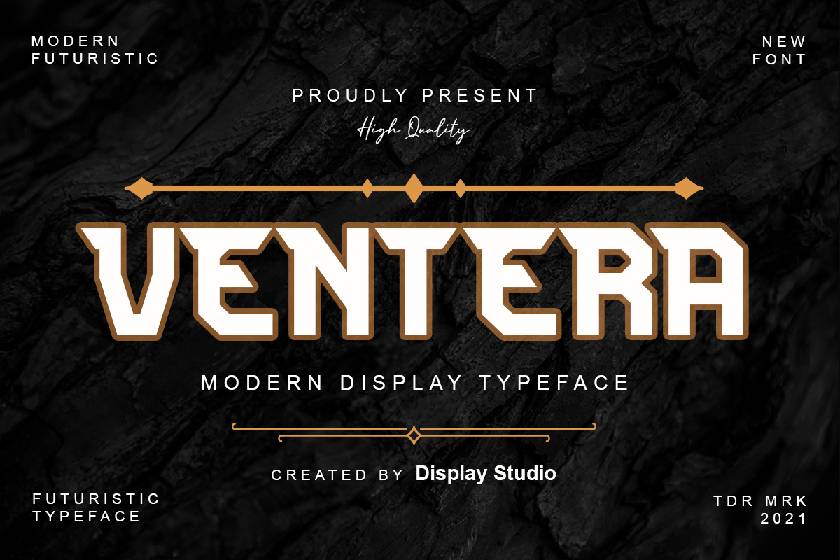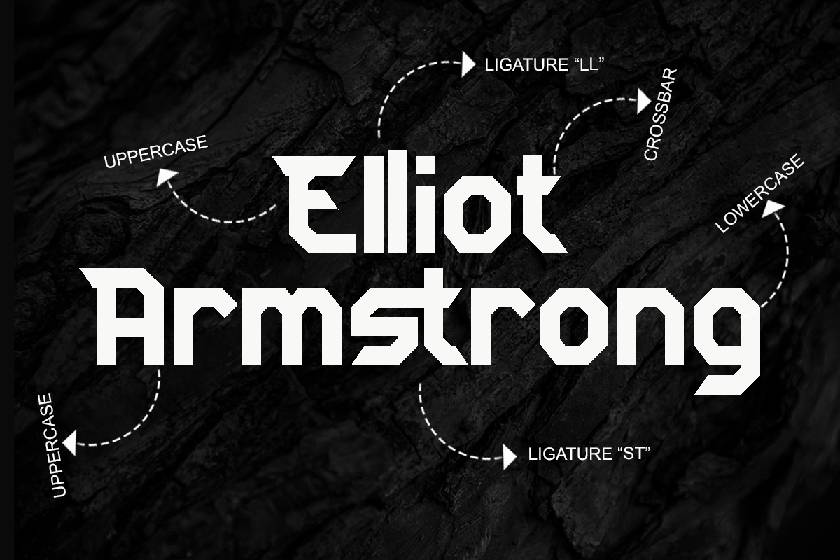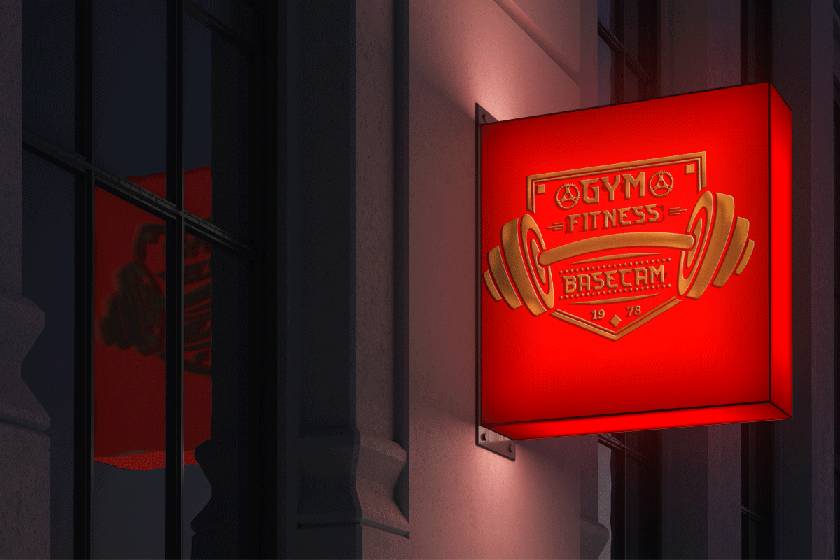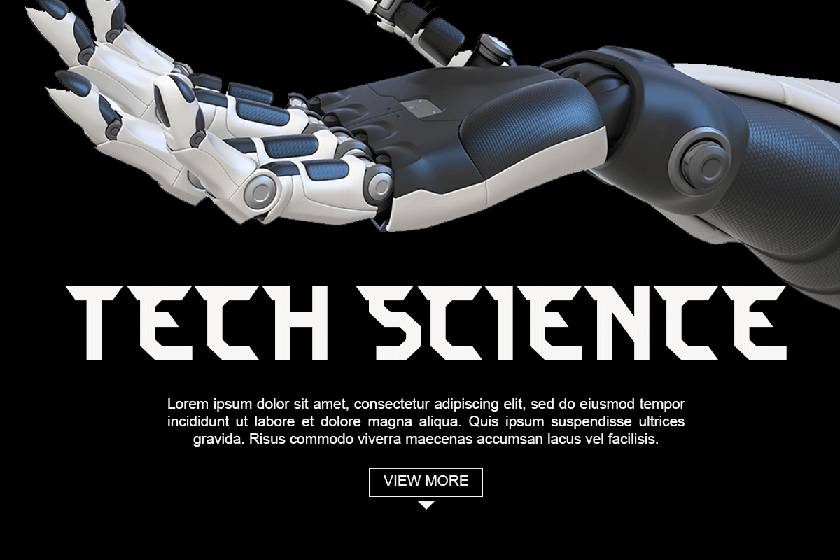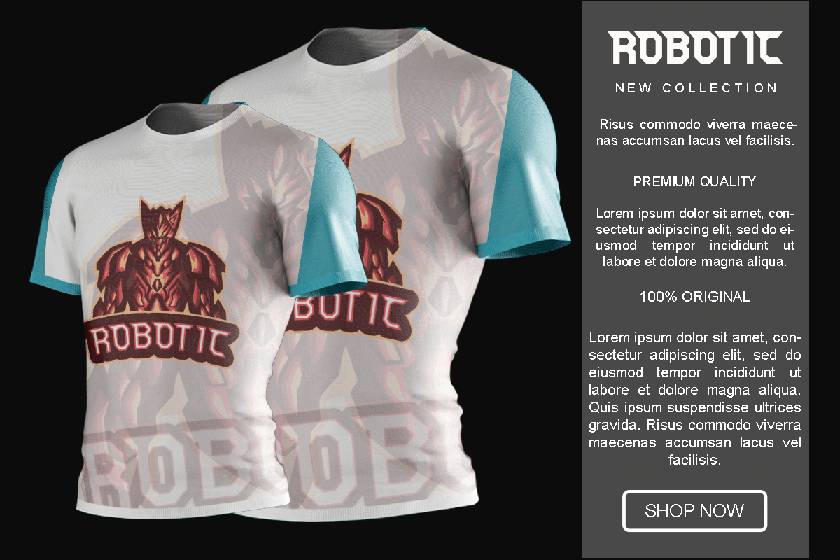
Ventera is a bold, geometric sans serif font with a distinctive angular and blocky style, giving it a strong, modern, and slightly industrial feel. Its consistent stroke weight and tight spacing make it ideal for impactful headlines, logos, and branding that demand attention with a futuristic or tech-inspired vibe. This font works well where a bold and unconventional look is needed to stand out and convey confidence and innovation.
Ventera Font
About Ventera Font
| Font family | Ventera Font |